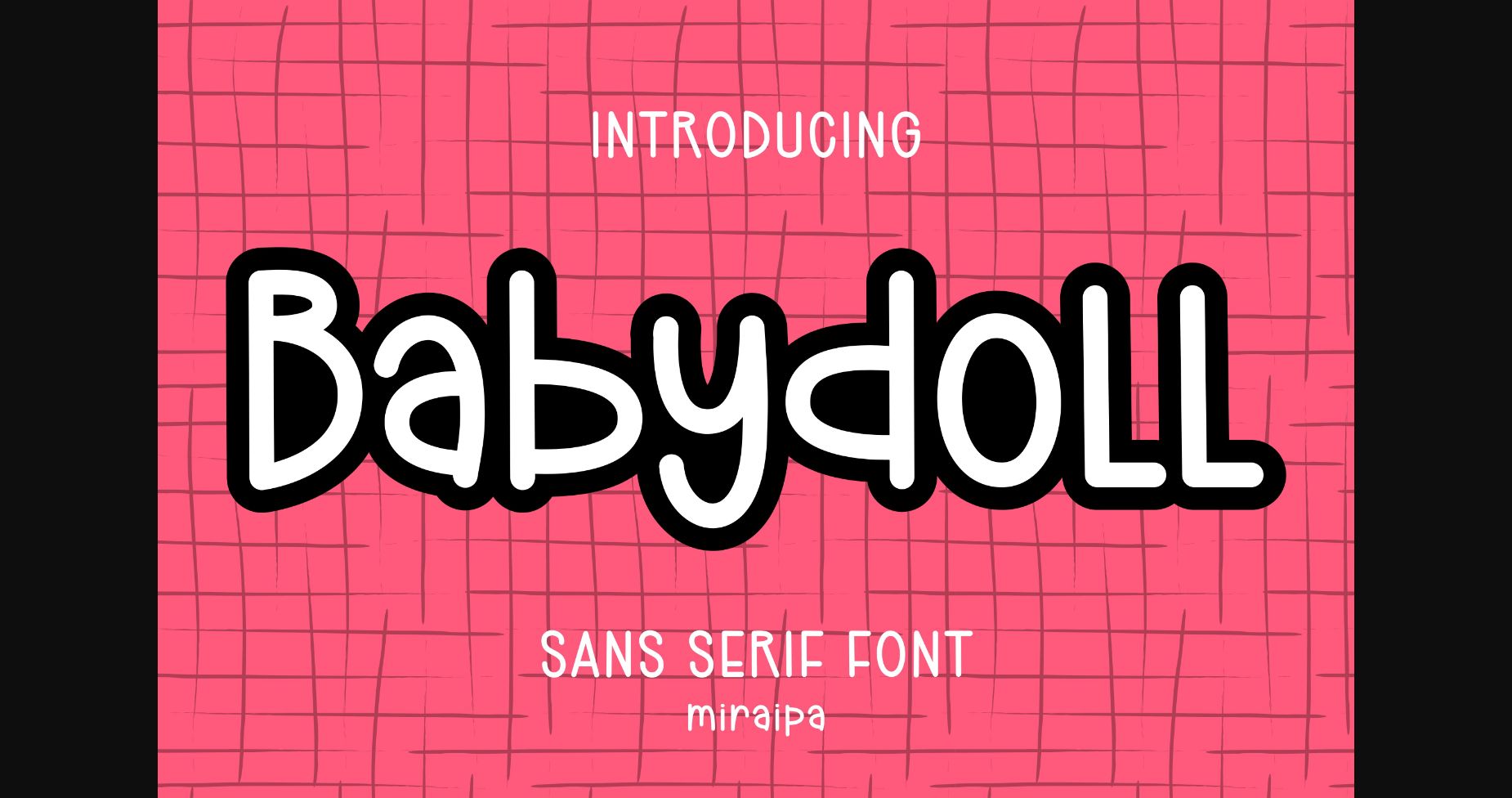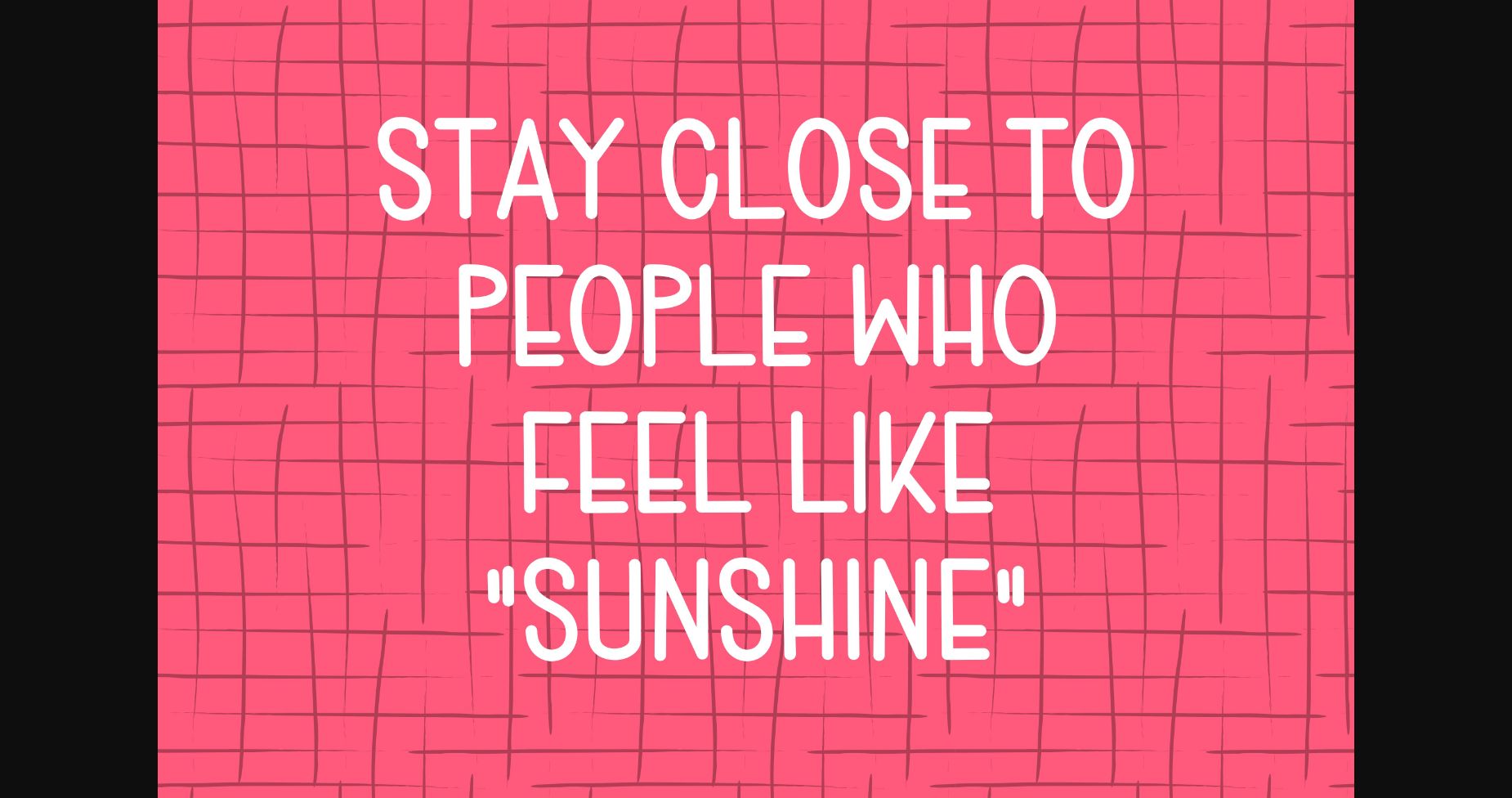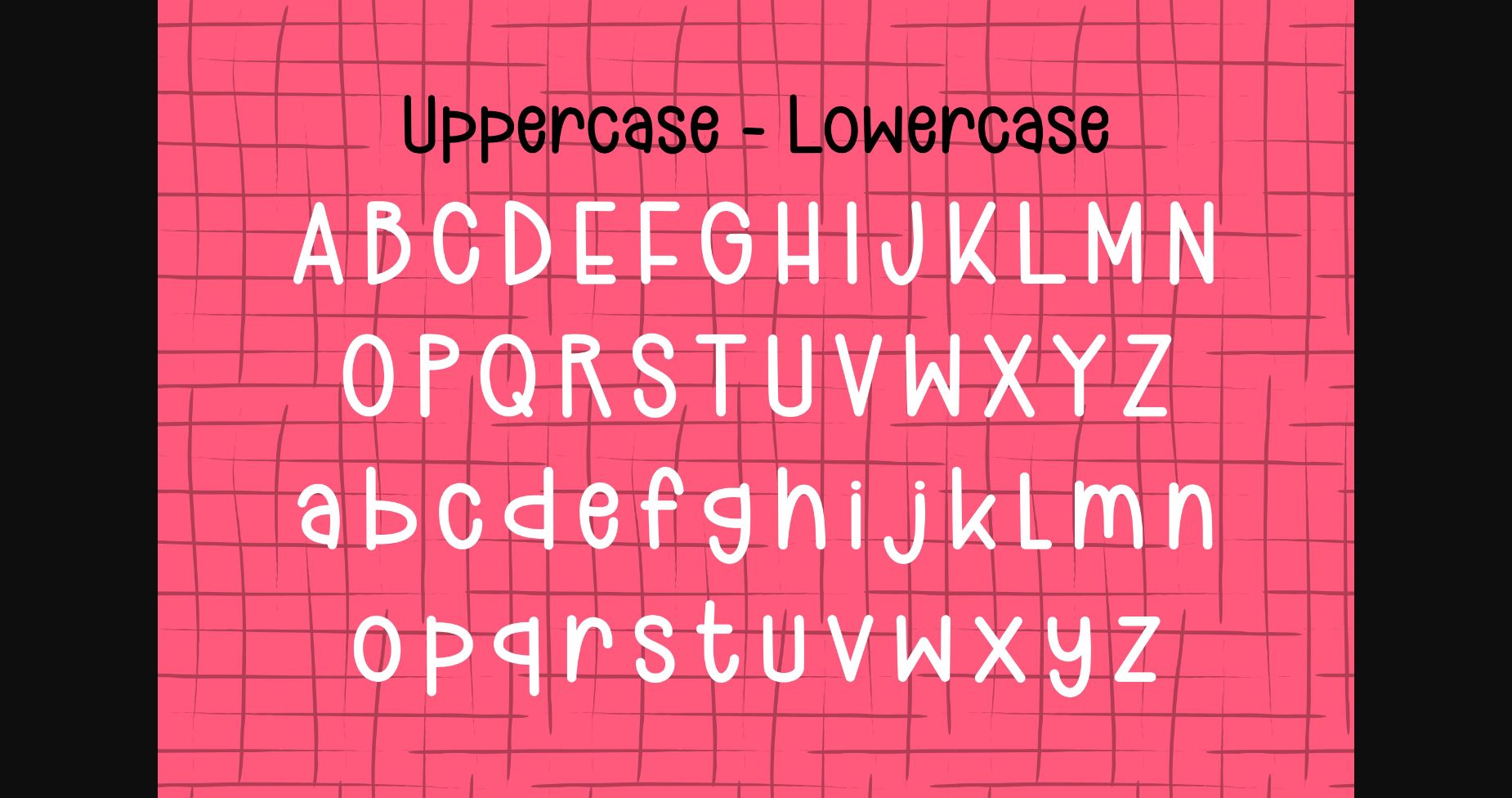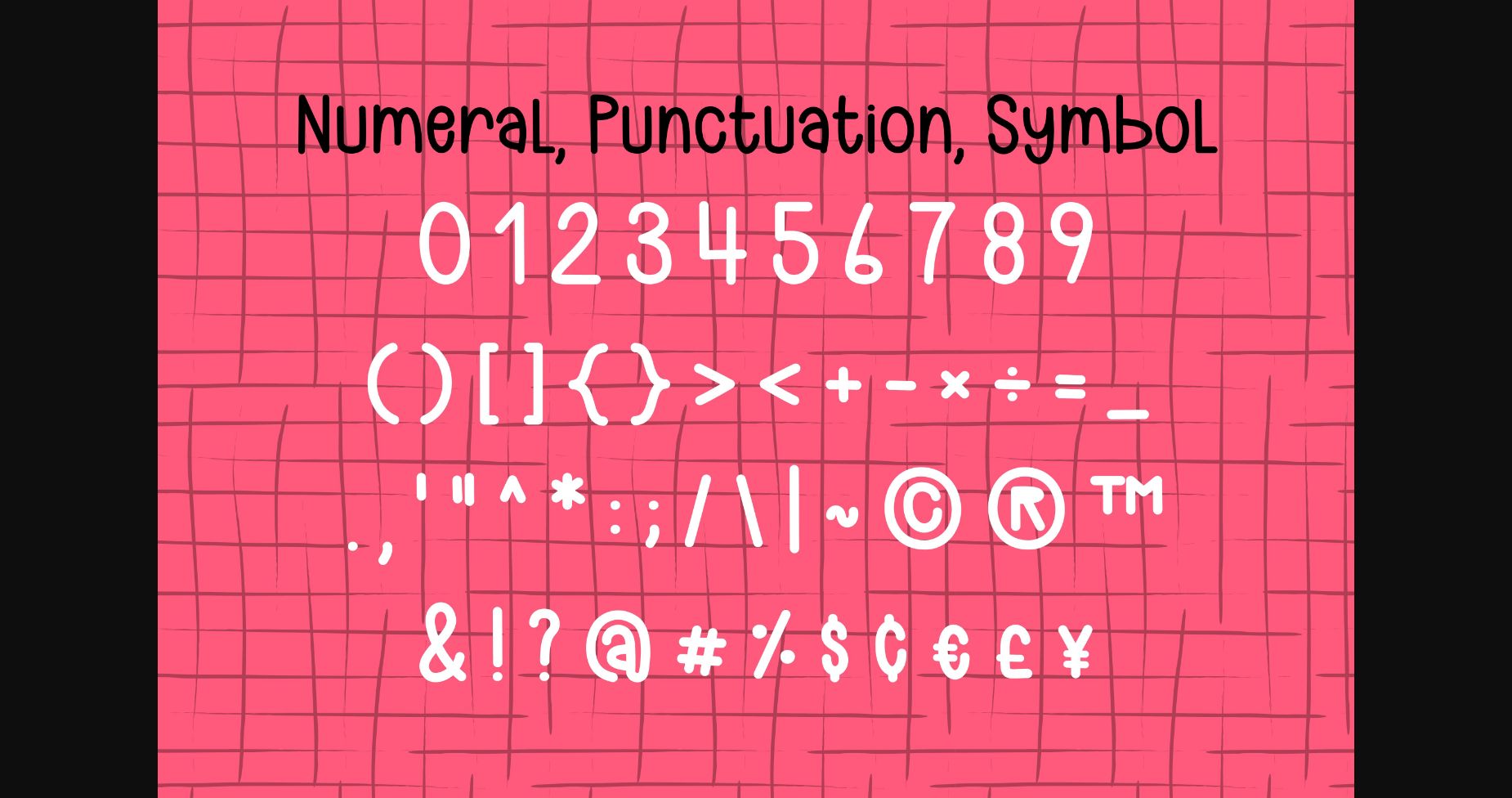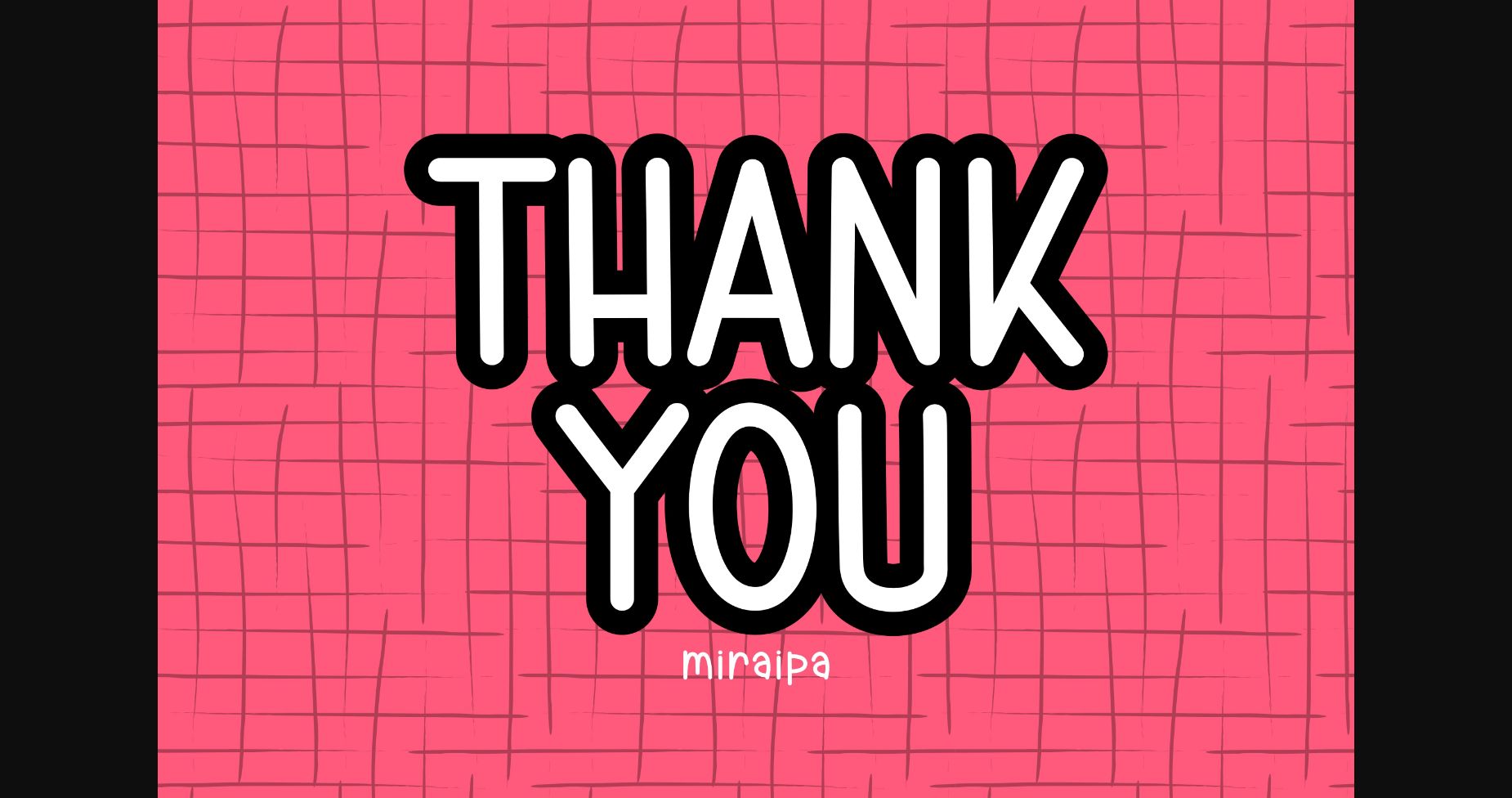
Babydoll is an incredibly cool and unique sans-serif font. It has a modern yet whimsical style and it will undoubtedly immerse your designs into a magical world.